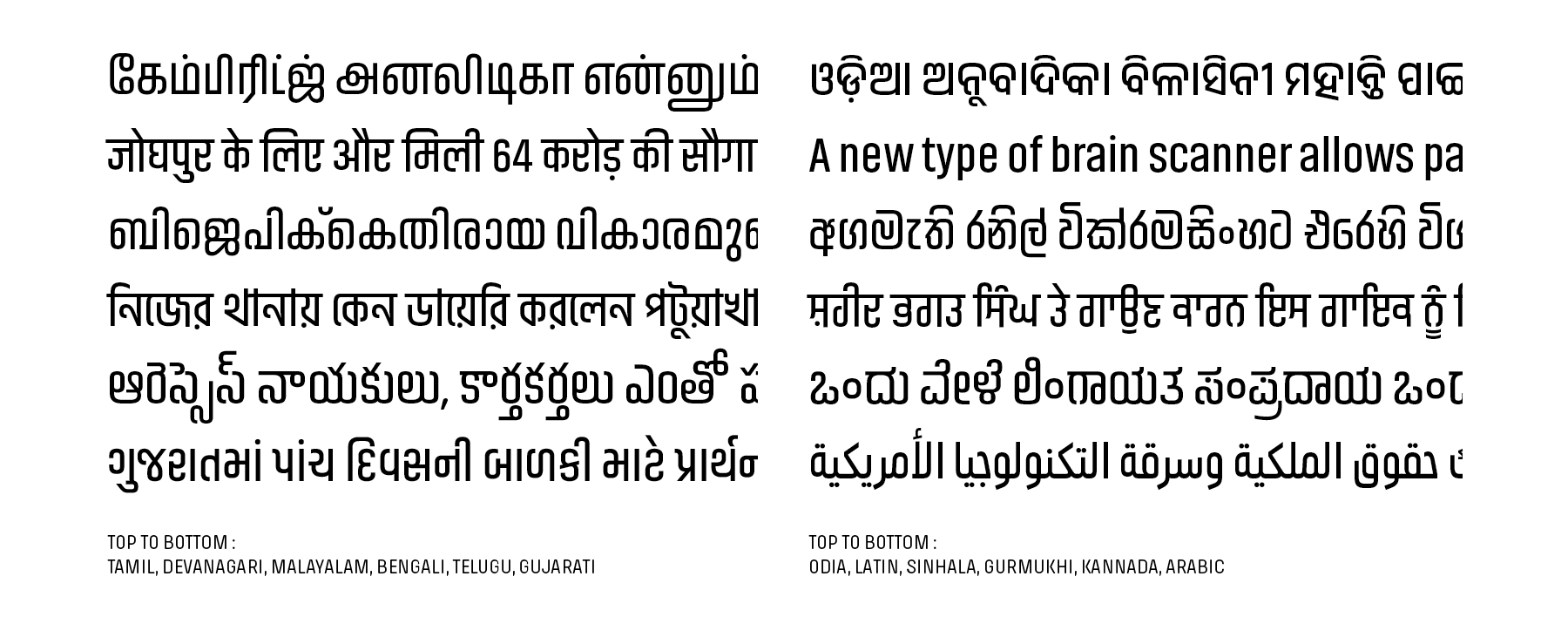
We are pleased to announce a large extension to our popular Akhand series, which more than doubles the number of scripts it supports. Akhand is a system of monolinear sans-serif style fonts from the Indian Type Foundry, made both for the Indian scripts, as well as several others. The superfamily already supported Bengali, Devanagari, Latin, Malayalam, and Tamil. As of today, it also supports Arabic, Gujarati, Gurmukhi, Kannada, Odia, Telugu, and Sinhala. With the addition of these 7 scripts, Akhand now supports all of India’s official writing systems. Apart from the 11 Indian scripts, Akhannd also Supports Sinhala, the official language of Sri Lanka.
Each of our new Akhand families includes eight different styles. These range in weight from Extralight through Black. The typefaces’ letterforms are condensed; many of them are drawn with straight sides. While the shapes used in each of the Akhand subfamilies are script-specific, they all share a similar dynamic. Typically rounded elements have been made compact; their verticals are flattened. This ‘straightening out’ gives text set in the typefaces a streamlined look. The Akhand typefaces’ modular forms bear a strong commonality to each other, without strings of characters becoming repetitive in text. Not every aspect of Akhand’s design is constructed, however. The curves in its modules have all been optically corrected, which removes the mechanical nature that could otherwise become too dominant. Akhand’s modularity extends beyond the formal level, too.
In every script, Akhand is fine-tooled for use in corporate identity design, editorial design, and even signage systems. Although we primarily developed the fonts for headline setting, the Light, Regular, and Semibold styles are suitable for use in short paragraphs of running text. The lighter and heavier styles are an optimal choice for headlines, or for single word settings, like logos. The broad range of weights makes combinations with a strong degree of contrast possible; the lightest and the heaviest styles may be mixed to create a powerful effect in your design.
Who worked on the family’s new styles? Akhand Arabic wad designed by Bahman Eslami and Michelle Parmar. Akhand Gujarati was designed by Parimal Parmar, Akhand Gurmukhi by Namrata Goyal, Akhand Kannada and Telugug by Jonny Pinhorn, Ramakrishna Saiteja & Nikhil Ranganathan, Akhand Odia by Jyotish Sonowal, and Akhand Sinhala by Aditi Pimprikar. Michelle Parmar also designed Akhand Thai which will be published later this year.